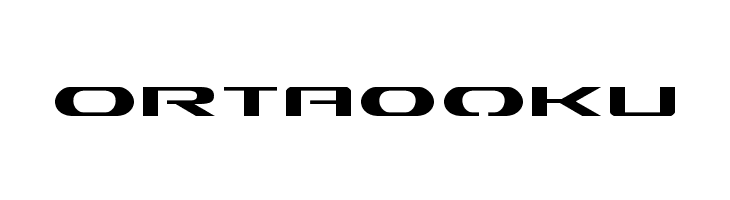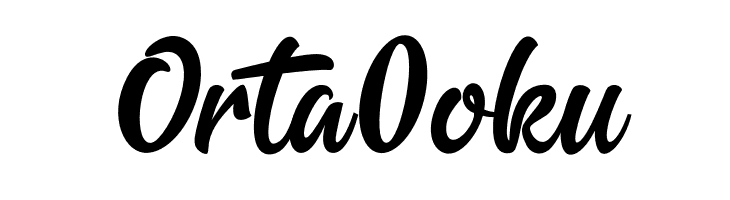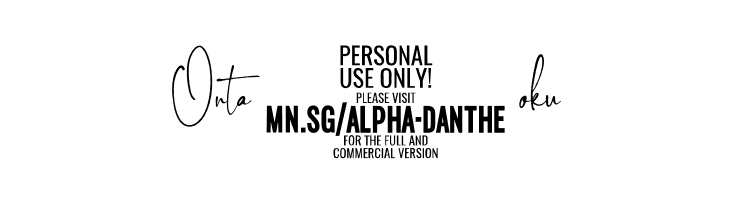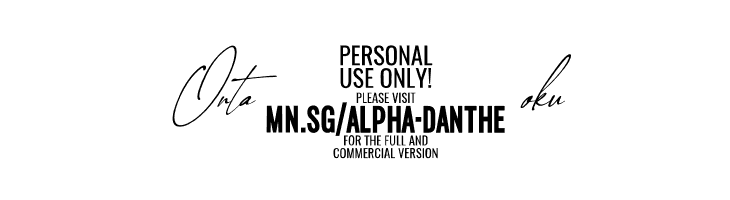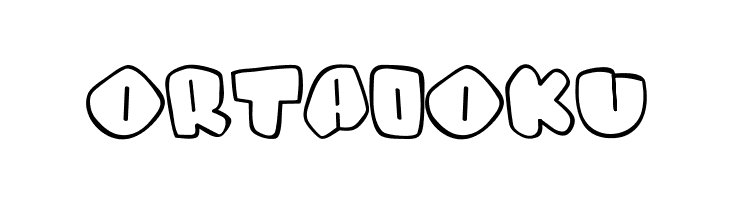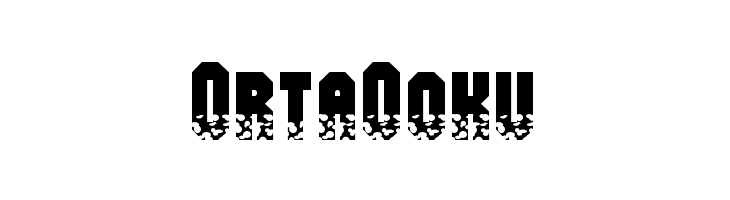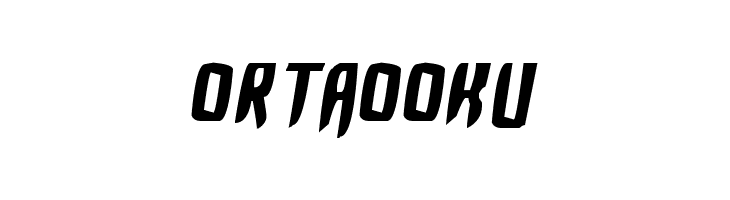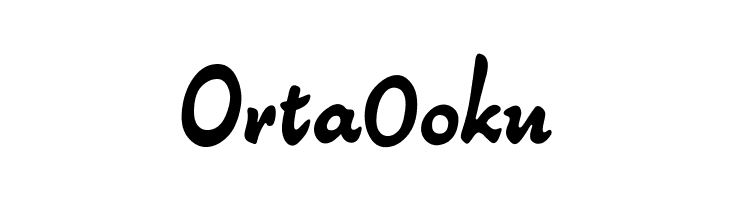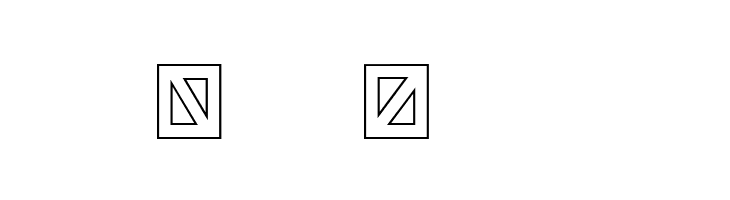
• Alpha Danthe PERSONAL USE Italic
A modern, elegant script font with flowing, cursive strokes.
• Alpha Danthe PERSONAL USE Regular
A graceful and elegant handwritten font with delicate strokes.
• Alpha Men
A bold, futuristic font with geometric shapes and sharp angles.
• Alpha Monday
A bold, cursive font with a flowing, handwritten style.
• Alpha Mutation
A bold, decorative font with a fragmented, pixelated texture.
• Alpha Outline
A geometric, angular outline font with a futuristic and edgy style.
• Alpha Prota
A geometric, minimalist font with thin lines and angular shapes, perfect for modern designs.
• Alpha Sapphire
• Alpha street
• Alpha54
A bold, dynamic script font with a playful and energetic style.